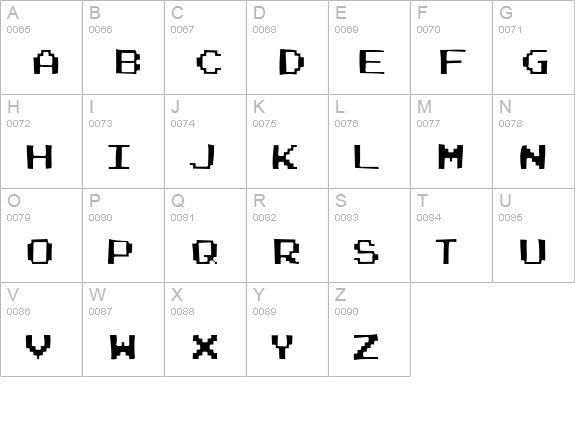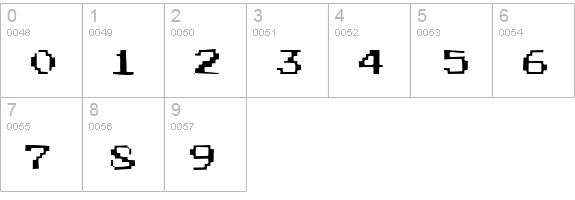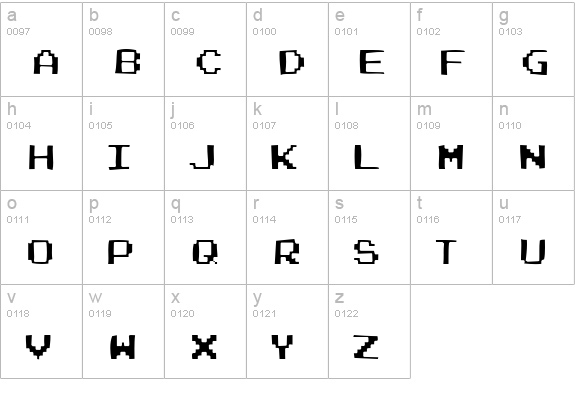
Joystix Gaunt Font Details
The Joystix Gaunt font is a playful and energetic typeface that captures the essence of retro arcade games with its bold and quirky design. Its sharp angles and distinctive style make it perfect for adding a touch of fun and nostalgia to your projects. Whether you're creating a gaming website, designing a poster for a gaming event, or crafting a unique logo, Joystix Gaunt will make your text stand out. Best of all, Joystix Gaunt is available for free at FontsMarket.com, where you can easily download and start using this dynamic font right away. Don't miss out on the opportunity to add a touch of whimsy and excitement to your designs with Joystix Gaunt. Download it today and let your creativity soar!